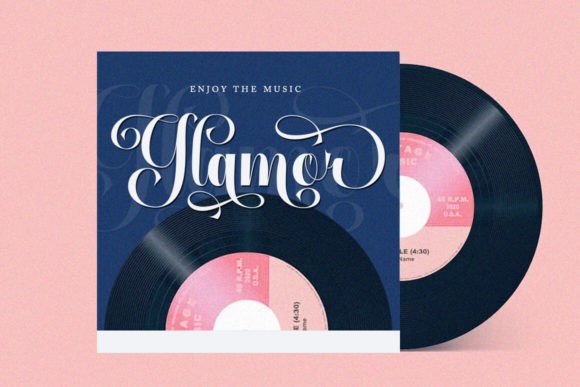
Merry Brighty Font
Merry Brighty Script is interesting because the typeface is pleasing to the eye, clean, feminine, sensual, glamorous, simple and very easy to read, thanks to the many luxurious letter connections. I also offer a number of decent style alternatives for some letters. The classic style is perfect for application in various formal forms such as invitations, labels, restaurant menus, logos, fashion, makeup, stationery, novels, magazines, books, greeting/wedding cards, packaging, labels or all types of advertising purposes.